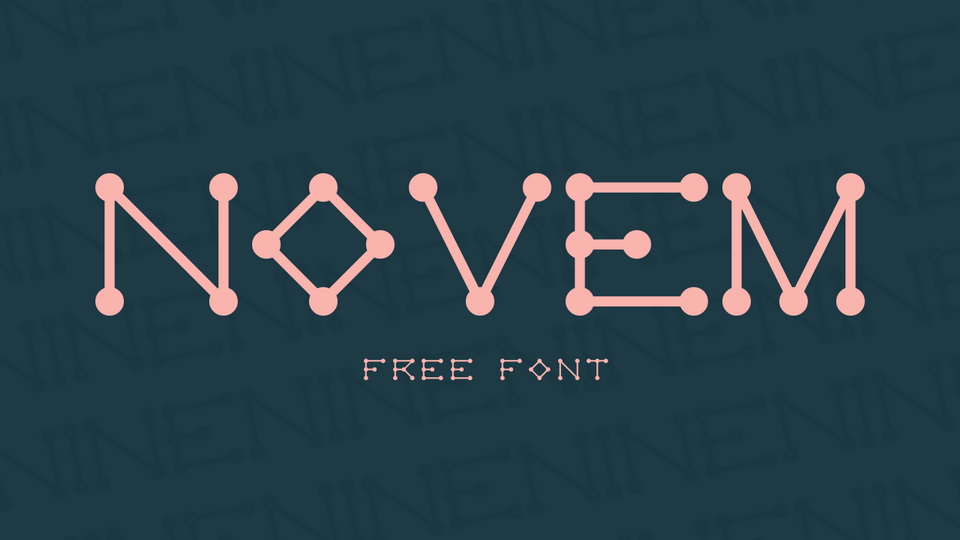
Feb 4, 2025DisplayNovem Font Novem is a decorative typeface with geometric shapes and dotted elements. The font is perfect for posters, games, packaging and any display use. Font DetailsDesigned by: GGBotWebsiteLicense: Free for commercial use Download Novem FontFile size: 10.97 KBCreated: February 16, 2025Updated: February 16, 2025 Download Explore similar fonts Ortech Font Netech Font Torq Font Counter-Strike Logo Font Coastal Change Font Shizuoka Cyberpunk Font # Block# Cyrillic# Geometric# Technology More fonts by GGBotAkasha FontPixeloid FontCairopixel FontRijusans FontChainsaw Carnage FontEightgon FontVaticanus FontRapid Penmanship Font